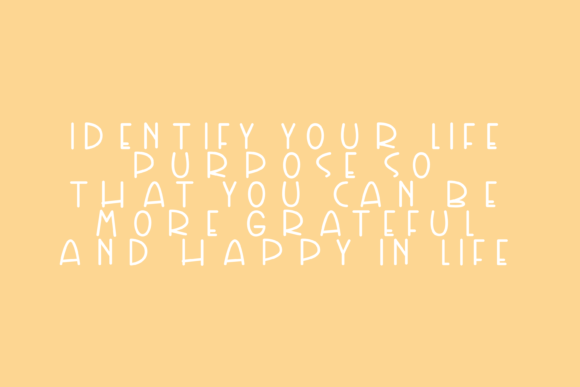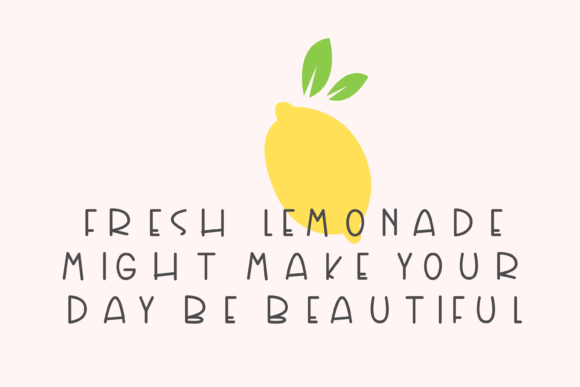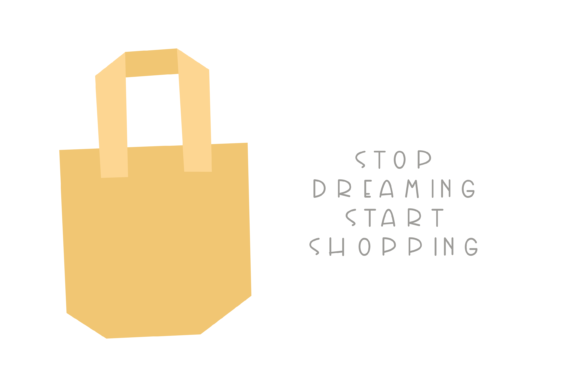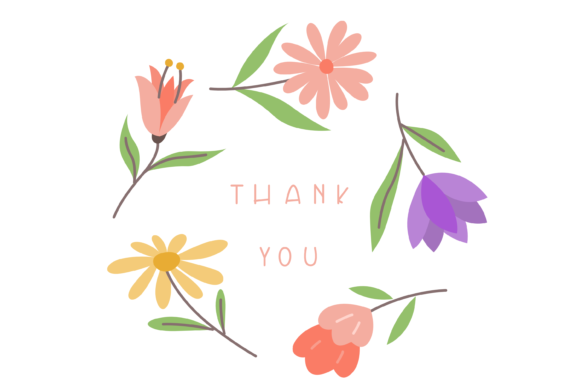
Introduction to Hello Brader Font
Have you ever stared at a blank canvas, struggling to find the perfect font to bring your creative project to life? We’ve all been there. But what if you had a secret design resource that could make all the difference? Enter the Hello Brader Font, a charming and versatile handwritten font that’s about to become your new best friend.
With its minimalist design and cute characters, the Hello Brader Font is the perfect addition to any fonts library. Whether you’re working on a high-quality design project or just need a fun and quirky touch, this font is sure to deliver. Plus, its transparent background makes it easy to layer and customize to fit your unique vision.
Hello Brader Font
- Unique, bold font style with a transparent background, ideal for adding visual interest to designs.
- Comes in a single weight, perfect for those who want a simple yet striking font for their designs.
- Perfect for designers looking for a free, high-quality font to add a touch of creativity to their work.
Honest Review: Hello Brader Font
As a designer, I’m always on the lookout for high-quality design resources that can elevate my creative projects. Hello Brader Font is one such resource that caught my attention, and I’m excited to share my thoughts on it.
First impressions are everything, and Hello Brader Font does not disappoint. The font is clean, modern, and sleek, making it perfect for a wide range of design applications. I particularly love the transparent background option, which gives me the flexibility to use it with any design element.
- ✨ High-quality design: The font is well-crafted and visually appealing.
- ✨ Versatile: Suitable for various design applications, from logos to digital products.
- ⚠️ Limited font styles: While the font is clean and modern, it’s limited in terms of font styles and weights.
- ⚠️ Not ideal for complex typography: The font may not be the best choice for projects that require intricate typography.
Overall, I’m impressed with Hello Brader Font. While it has its limitations, it’s a solid addition to any designer’s toolkit. If you’re looking for a high-quality, modern font for your creative project, I’d definitely recommend giving it a try.
Hello Brader Font
Hello Brader Font is a high-quality design resource perfect for creative projects. With its unique style and transparent background, it’s ideal for adding a touch of elegance to your designs.
For the most out of the Hello Brader Font, use it in conjunction with other design elements, such as images and graphics. Experiment with different font sizes and styles to add visual interest to your designs.
Hello Brader Font is ideal for a variety of creative projects, including:
- Logos and branding
- Infographics and data visualizations
Alternatives to Hello Brader Font
Bebas Neue
Bebas Neue is a modern sans-serif font ideal for creative projects that require a high level of sophistication. It’s available for free download and features a transparent background, making it perfect for use on various design resources. Use Bebas Neue for titles and headings in your design to add a touch of elegance.
Compared to Hello Brader Font, Bebas Neue has a more refined and minimalist design, making it suitable for a wider range of creative projects.
Montserrat is a popular sans-serif font designed specifically for use in digital design. It’s highly legible and features a high-quality design that works well on various backgrounds. Use Montserrat for titles, headings, and body text in your design to create a clean and modern look.
Montserrat is similar to Hello Brader Font in terms of its modern and sleek design, but it has a more geometric and structured feel.
Abril Fatface
Abril Fatface is a beautiful script font perfect for creative projects that require a touch of elegance. It’s available for free download and features a high-quality design with a transparent background. Use Abril Fatface for titles and headings in your design to add a touch of sophistication.